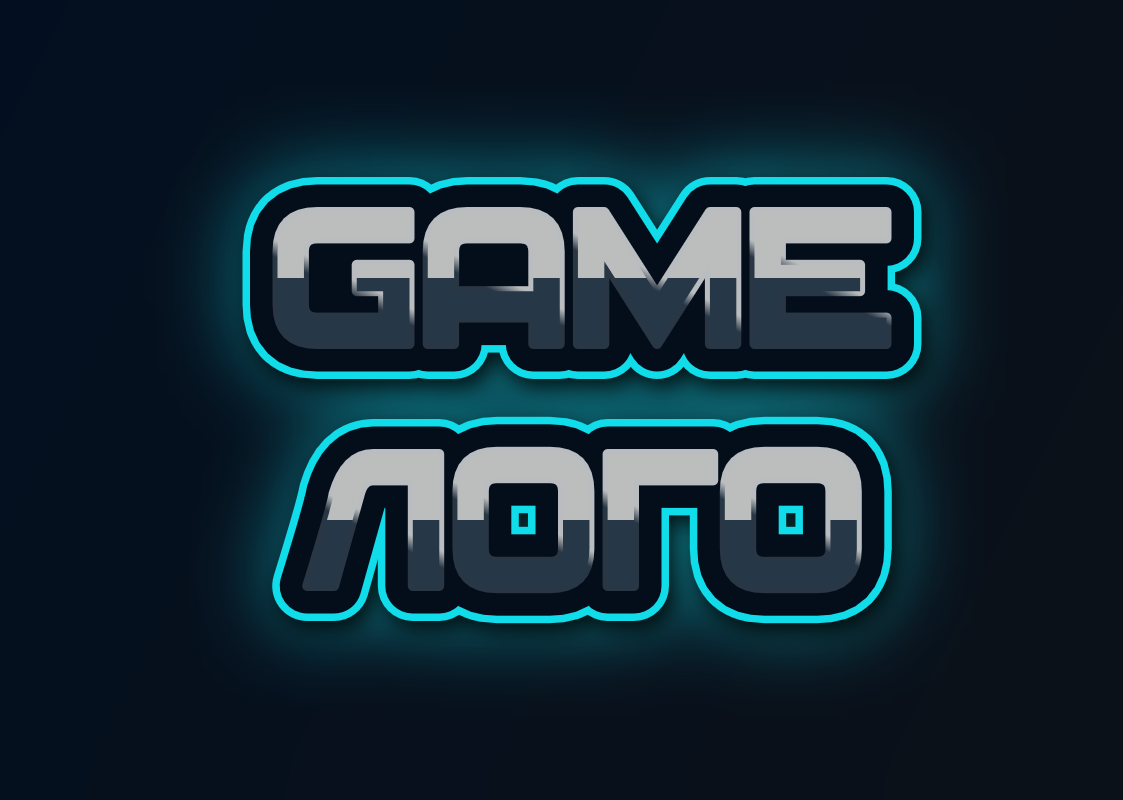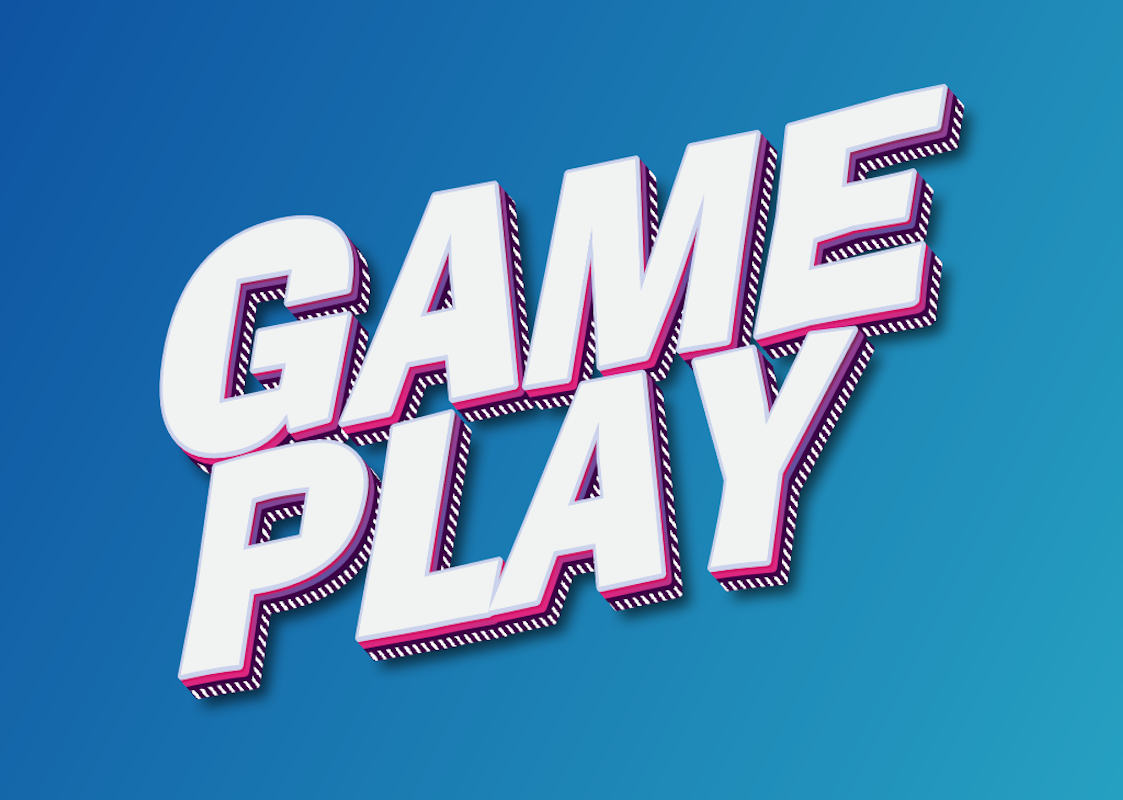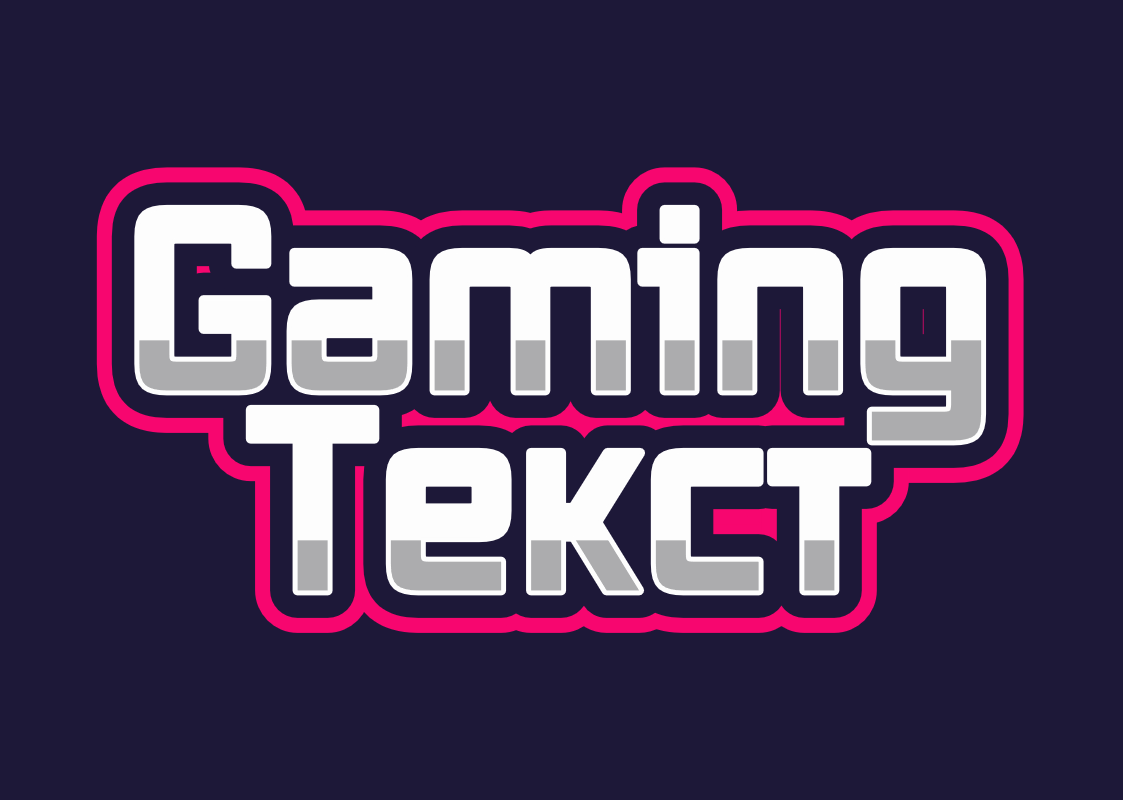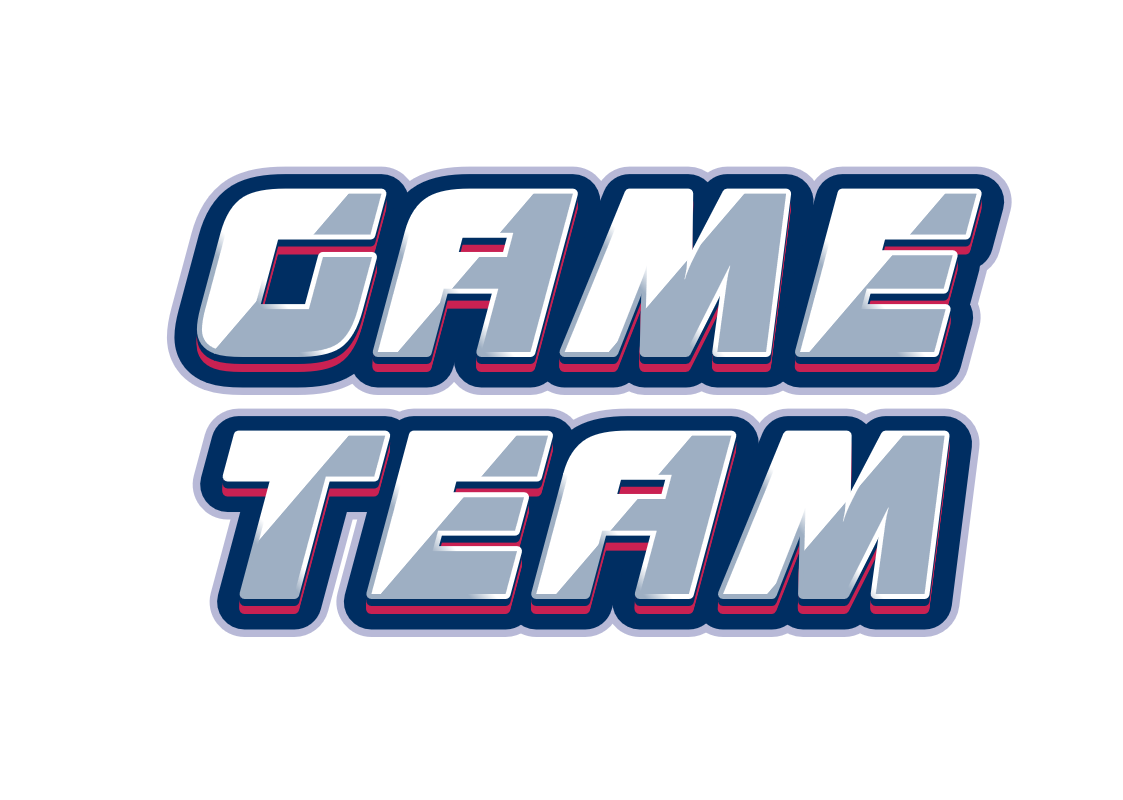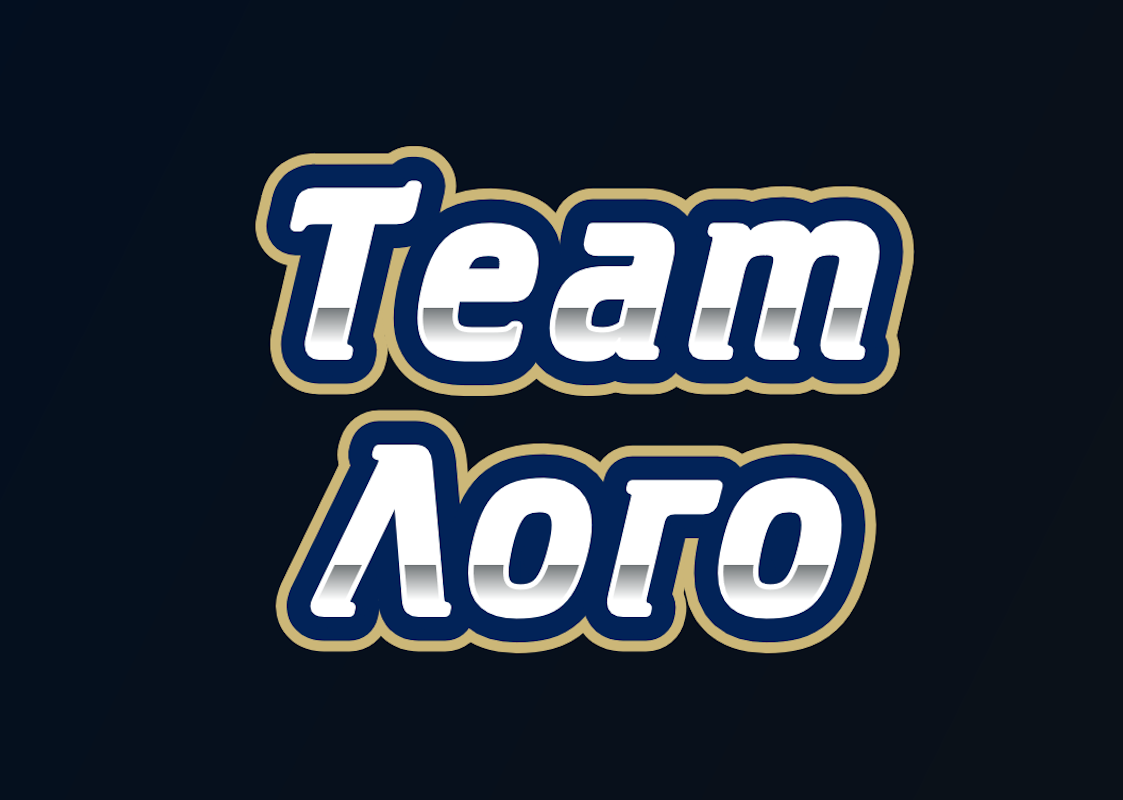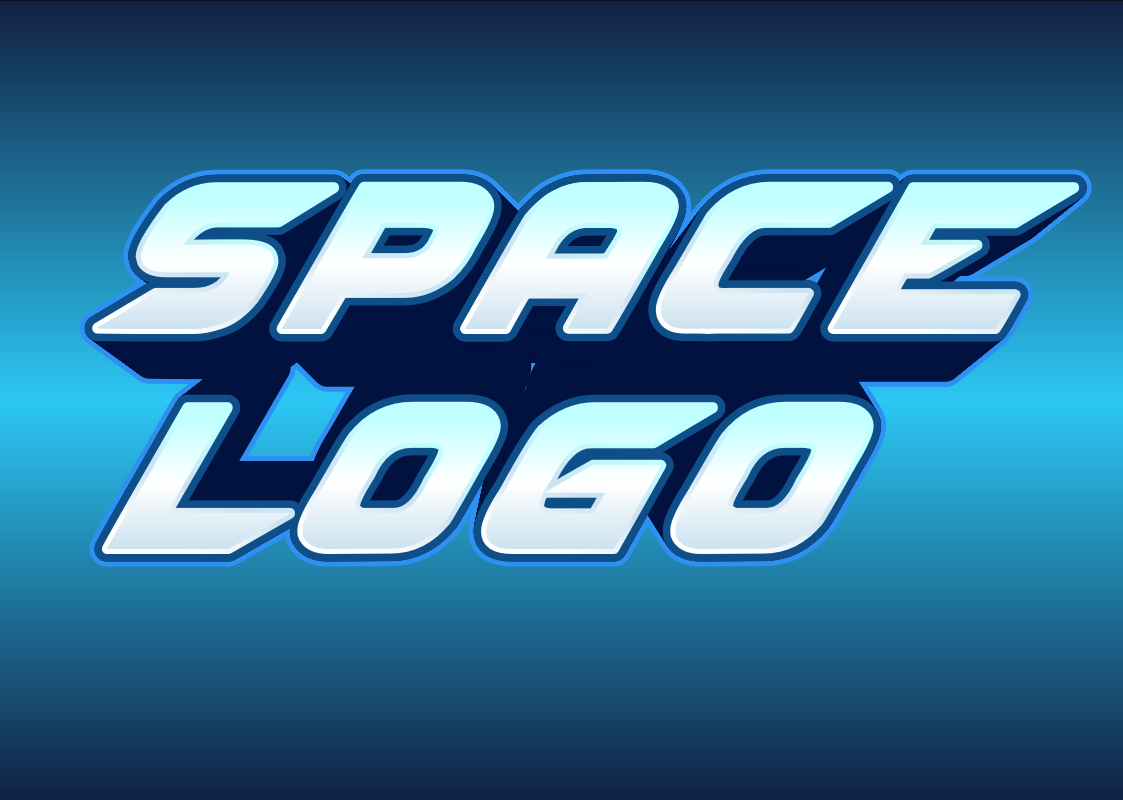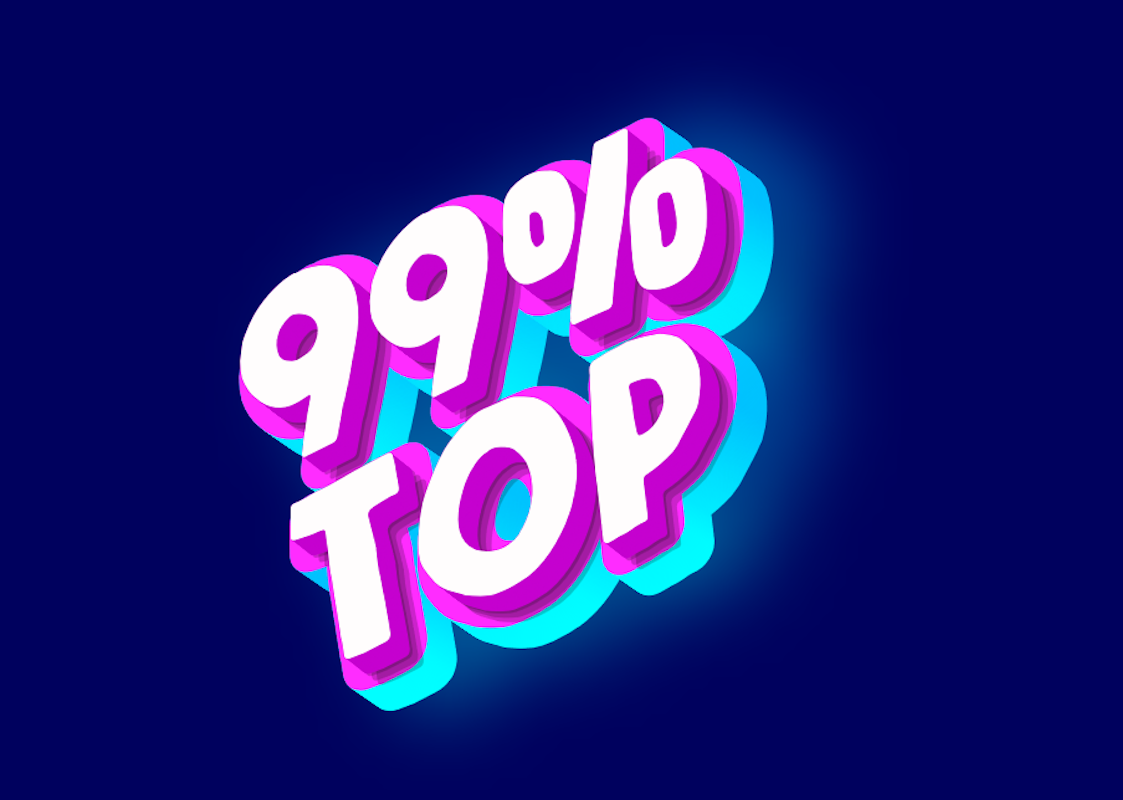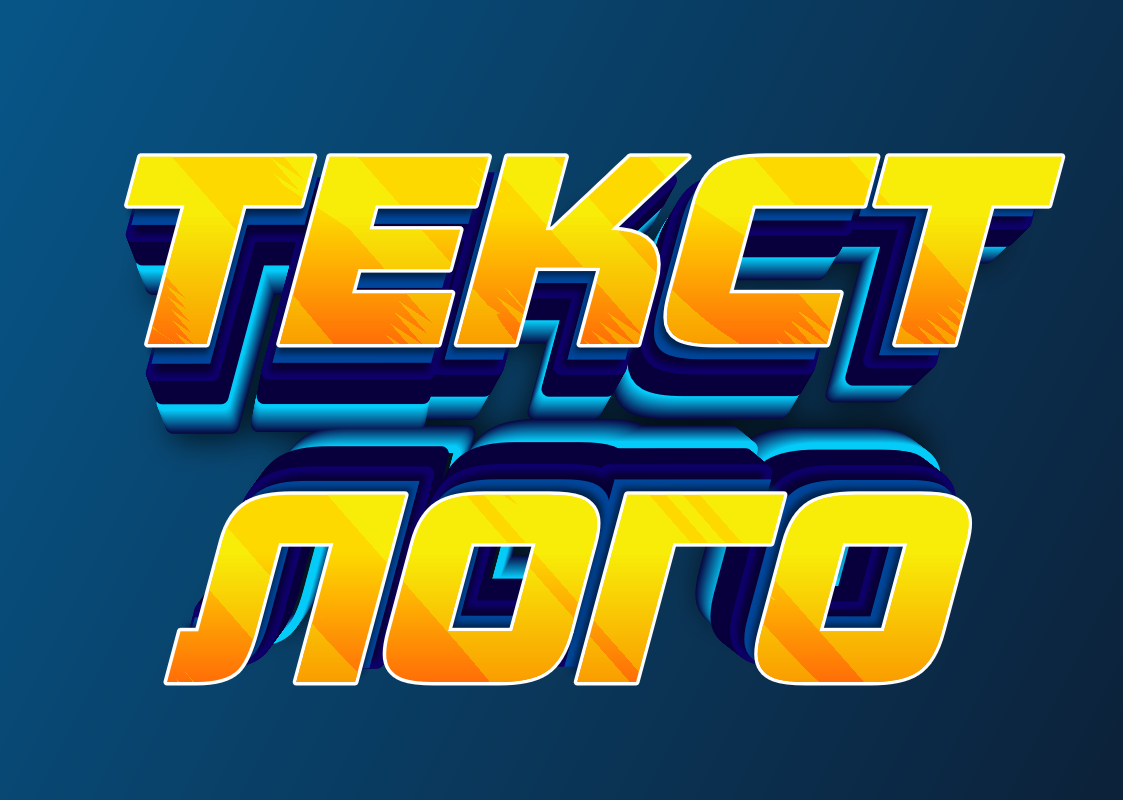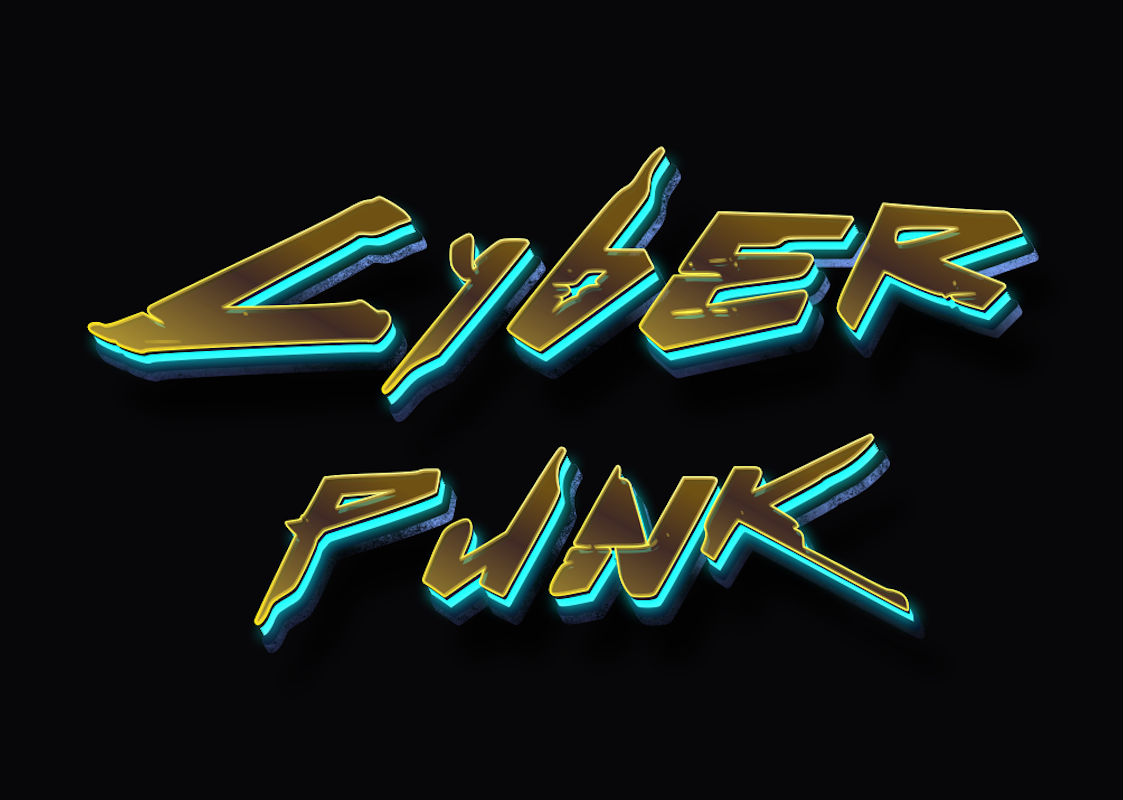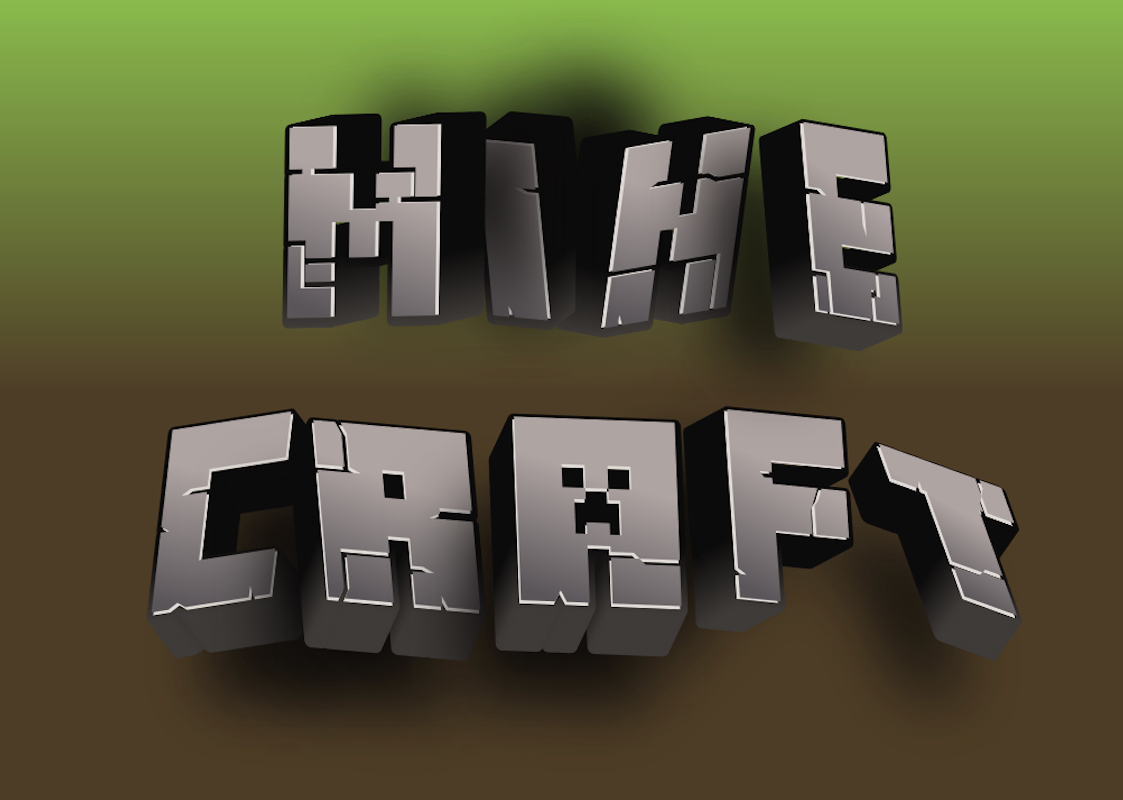
Create a Gaming Logo with a Beautiful Font
Use our online 3D text generator to create a vibrant logo with a unique font, 3D effect, neon colors, and gradients that will definitely stand out from the rest.
Find the Perfect Font for Your Game's Logo
Our 3D text generator will help you create a unique logo using stylish fonts, 3D effects, vibrant gradients, and neon colors. Let your logo capture attention and become the hallmark of your game!
"Retro Gaming" Text Effect: Nostalgia in Every Pixel
Dive into the world of 8-bit games! Large pixel letters with a sticker effect and a shining blue gradient are perfect for designing retro games, videos, streams, logos, and cyberpunk-style designs.
"Super Team" Text Effect: Power and Unity
Emphasize strength and cohesion with this powerful effect! Volumetric letters with a dynamic bevel, a multi-layered effect, and a contrasting outline create the image of an invincible team. Ideal for sports logos, team names, and motivational posters.
"Esports" Text Effect: Dynamics and Drive
Add energy and drive to your projects! This esports-style effect combines sharp lines, a bright neon outline, and a gradient, creating a sense of movement and technology. Perfect for team logos, streams, games, and sports projects.
"Neon Glow" Text Effect: Add Magic to Your Design
Create a sense of magic and adventure with this shining neon text. A smooth gradient from purple to blue and a slight 3D effect will add depth and expressiveness to your headlines, logos, and promotional materials.
Pixel Text with Neon: Retro Gaming in Every Pixel!
Create the atmosphere of good old video games with this stylish text effect! Pixelated letters, bright neon lighting, and juicy retro colors are perfect for designing game videos, logos, streams, and retro designs.
Retro-Futuristic 3D Text: Go Back to the 80s!
Create an atmosphere of neon lights and retro games with this volumetric text effect. A double outline with a neon glow and a slight 3D effect will add dynamics and futurism to your projects. Ideal for headlines, logos, posters, and web design.
"Grim Reaper" Logo: Capture Your Audience's Attention
This cyberpunk-style grim reaper logo will add edge and aggression to your projects. It's perfect for gaming teams, streamers, music bands, and brands aiming to stand out with their dark charisma.
"Cartoonish" Text Effect: A Bright Accent for Fun Projects!
Add playfulness and positivity to your designs! This retro cartoon-style effect uses bright colors, smooth outlines, and a slight volume, making your text noticeable and memorable. Ideal for logos, children's projects, advertising, and web design.
"Electro" Text Effect: Charge Up Your Design
Add a futuristic glow to your projects! This effect combines volumetric letters with neon lighting and smooth contours, creating a sense of energy and technology. Ideal for logos, headlines, gaming, and music projects.
"Game Slot" Text Effect: A Big Win for Your Design
Add excitement to your projects with this bright text effect! Volumetric letters with a yellow gradient and a multi-layered structure create the feeling of a spinning slot machine, perfect for games, apps, and entertainment content.
"Graffiti" Text Effect: Bright and Bold
Add the rebellious spirit of the streets to your projects! This effect mimics the graffiti style with a bold font, sharp outlines, a gradient, and a splash effect. Perfect for youth brands, games, and music projects.
Cyberpunk Neon Text: Light Up the Night
Create the atmosphere of a dark digital future with this neon text effect! Bright yellow outlines, a grain effect, and sharp fonts are perfect for futuristic projects, games, and posters.
Retro Text Effect: A Bright Accent for Your Design
Breathe nostalgia into your projects! This text effect combines smooth retro-style font lines with a bright blue outline and a soft shadow, creating a stylish accent for logos, headlines, and posters.
Minecraft Text Effect: Bring Virtual Worlds to Life
Immerse yourself in the world of Minecraft with this volumetric text effect. Block-styled letters with a characteristic pixel texture are perfect for your game videos, banners, and designs.
Cyberpunk Text Effect: Neon Lights of the Future
Add a futuristic cyberpunk style with this 3D text effect! Golden letters with neon lighting and an aged effect will create an atmosphere of a dark future in your projects.
Font with Multi-layered 3D Effect
Yellow font with a white outline and blue shadows. Uses a multi-layered 3D effect, which gives the text volume and brightness. Ideal for action games or sports simulators.
Font with 3D Effect for a Gaming Logo
White font with a bright pink outline and a light blue underline. Uses a 3D effect with shadows, giving the text volume and brightness. Perfect for action games, sports simulators, or racing games.
"Space" Style Font for a Gaming Logo
Font for a Bold Gaming Logo
Font with a "brush" effect in a gray-blue color with a red outline. Creates a sense of dynamism and aggression, ideal for action games.
Neon Glow - Font for a Cool Gaming Logo
A stylish font with a neon outline - the perfect choice for your game's logo. It gives an effect of depth and brightness.
Create a Logo with the Perfect Font
Create a memorable logo using 3D effects, neon fonts, vibrant gradients, and other styles to make your game stand out from the rest.